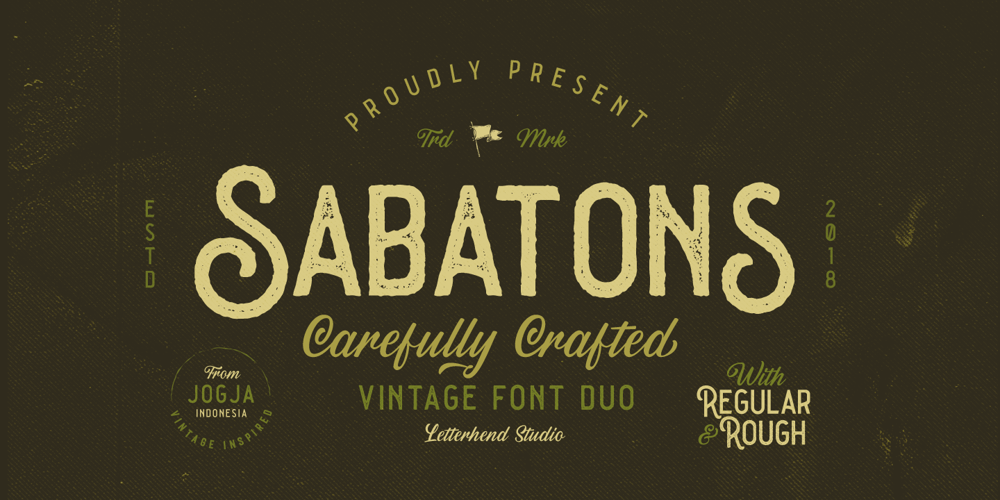
Sabatons
Sabatons font
Sabatons Font Family was designed by Hendry Juanda and published by Letterhend. Sabatons contains 4 styles and family package options. Sabatons is a sans and script font duo. The vintage feel is really perfect for you who needs a typeface for logotype, apparel, branding, packaging, advertising and more.The regular version will give you the clean and solid feel.The rough version will give you the vintage and aged feel.This typeface comes in uppercase, lowercase, punctuations, symbols & numerals, a bunch of alternates, ligatures, etc also support multilingual and already PUA encoded. Also with stamp version that will make the fonts more vintage!How to access opentype feature : http://letterhend.com/tutorials/using-opentype-feature-in-any-software/We hope you enjoy the font, please feel free to comment if you have any thoughts or feedback. Or simply send us a PM or email us at www.letterhend.com